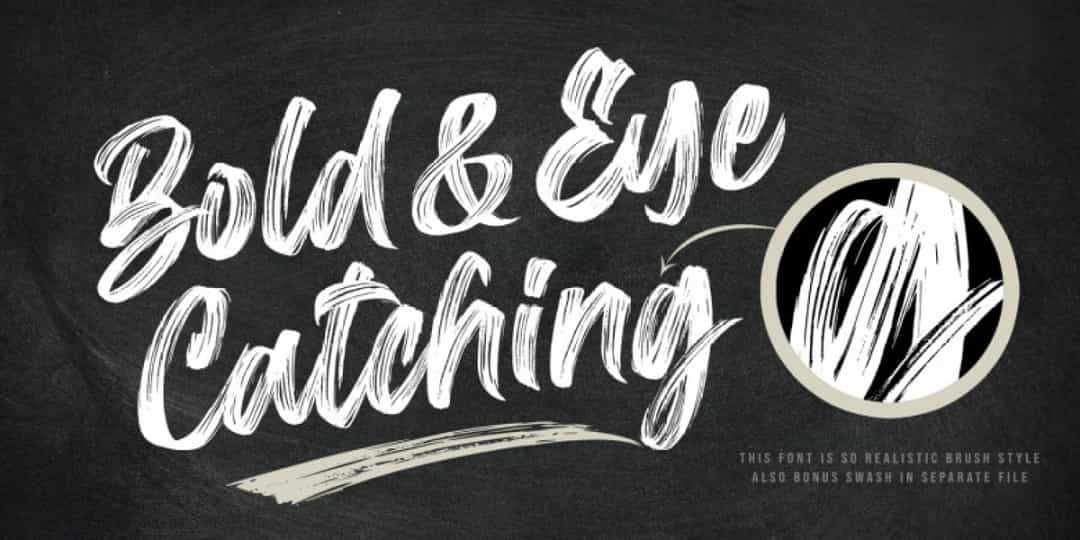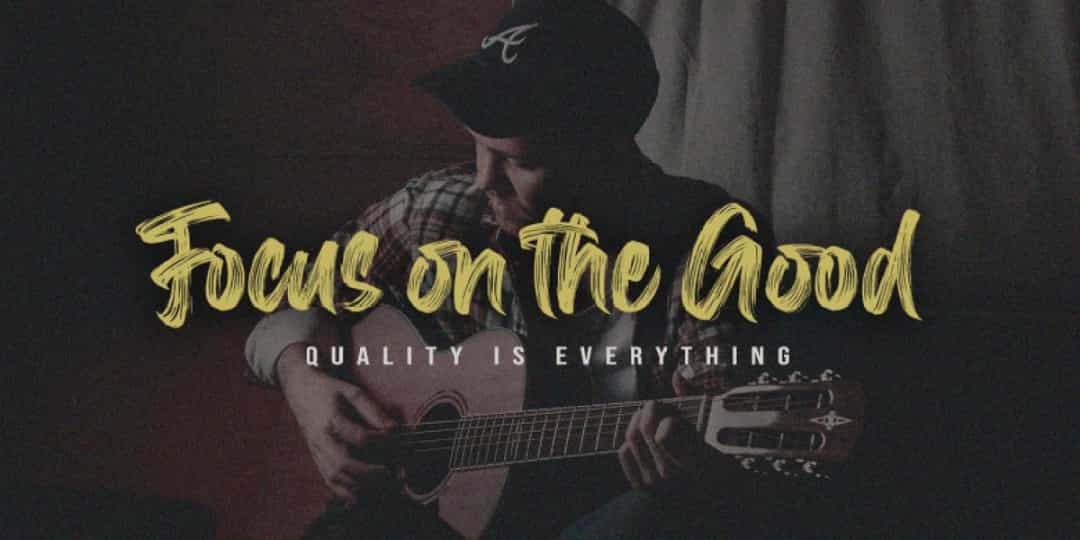
Dark Crow is a modern brush script font that contains the line through the texture. This font is makes it perfect for any design projects, events and much more. I designed it and released it with Mans Greback. It is a contributive, brush script typeface that was painted in the year 2020. The high quality design with the existence of many ligatures gives the letters a realistic look.